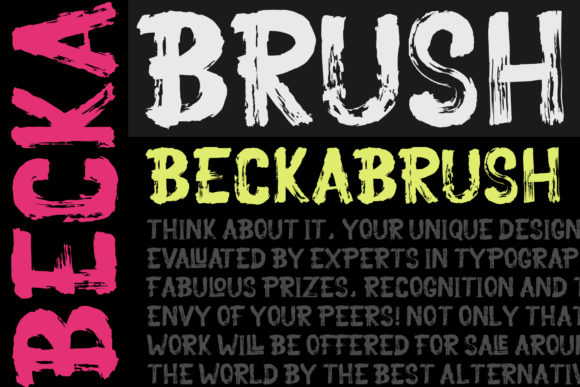
Introducing Becka Brush Font: A Rustic Masterpiece for Your Creative Endeavors
Welcome to the world of Becka Brush Font, a display font that exudes boldness and charm. Meticulously crafted with a brush pen's touch, Becka Brush is here to transform your creative visions into stunning realities. Its chunky letters dance across the page, evoking a sense of nostalgia and authenticity that is hard to resist. Whether you're a seasoned designer or just starting, Becka Brush is your perfect companion for adding a touch of rustic elegance to your projects.
Journey into the Heart of Rustic Charm
Becka Brush Font is not just a font; it's an artistic gateway into the realm of rustic charm. Its bold strokes and playful curves evoke the cozy warmth of a countryside cottage, the rugged beauty of a mountain cabin, or the timeless allure of a vintage farmhouse. With Becka Brush, you can effortlessly create designs that speak to the heart, designs that transport your audience to a simpler time, a time where life's beauty was found in the imperfections and where handwritten notes carried the weight of emotions.
Unleash Your Creativity with Endless Possibilities
Becka Brush Font is a versatile font, lending its rustic charm to a myriad of creative endeavors. From wedding invitations that whisper of love and commitment to social media posts that burst with personality, Becka Brush is the perfect choice for adding a touch of authenticity and warmth. Create logos that stand out with their unique character, design posters that capture attention with their bold presence, or craft product labels that exude a sense of artisanal quality. The possibilities are truly endless, limited only by the boundaries of your imagination.
Experience the Power of Emotional Connection
In a world saturated with digital communication, Becka Brush Font offers a refreshing antidote to the cold sterility of screens. Its handwritten charm has the uncanny ability to evoke emotions, creating a connection between your designs and your audience. When you use Becka Brush, you're not just conveying information; you're sharing a story, a feeling, a piece of your heart. Let Becka Brush be your conduit to hearts and minds, leaving an unforgettable impression that lingers long after the design is seen.